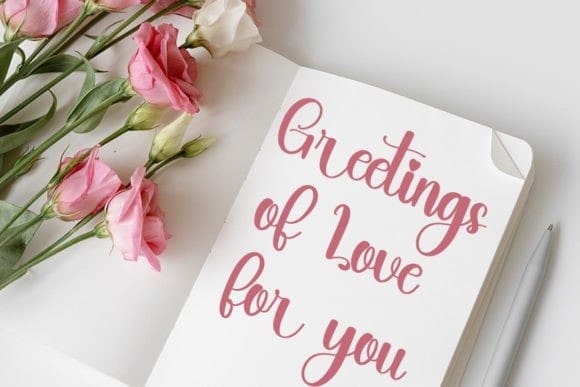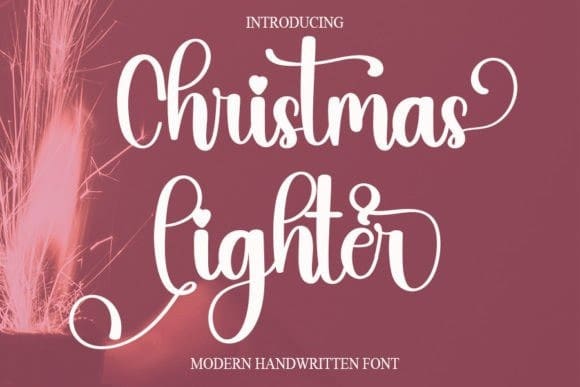
Christmas Lighter Font
Christmas Lighter Font is a casual and relaxed script font. Fall in love with its incredibly versatile style and use it to create gorgeous wedding invitations, beautiful stationary art, eye-catching social media posts, and much more!